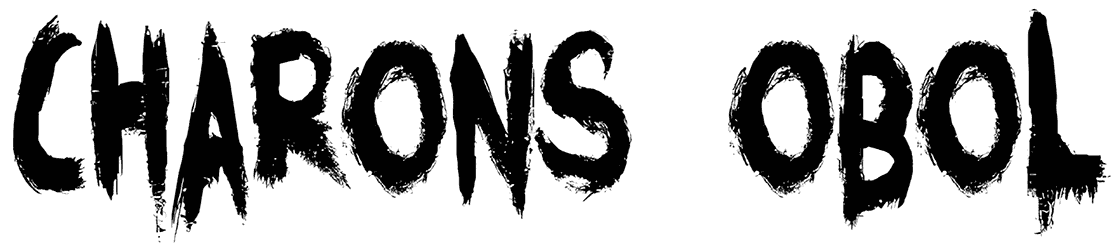
Charons Obol Font
Mysterious and threatening writings, whose author is unknown, are always fascinating and at the same time frightening to different people. This is what you can do in your writings using Charons Obol.
Using this horror font, you will get a great opportunity to attract the attention of the audience, where you cannot use small letters. So, put this evil font with a horrible nature on album covers, posters, and promotional teasers to scream your message in the ears of the audience.